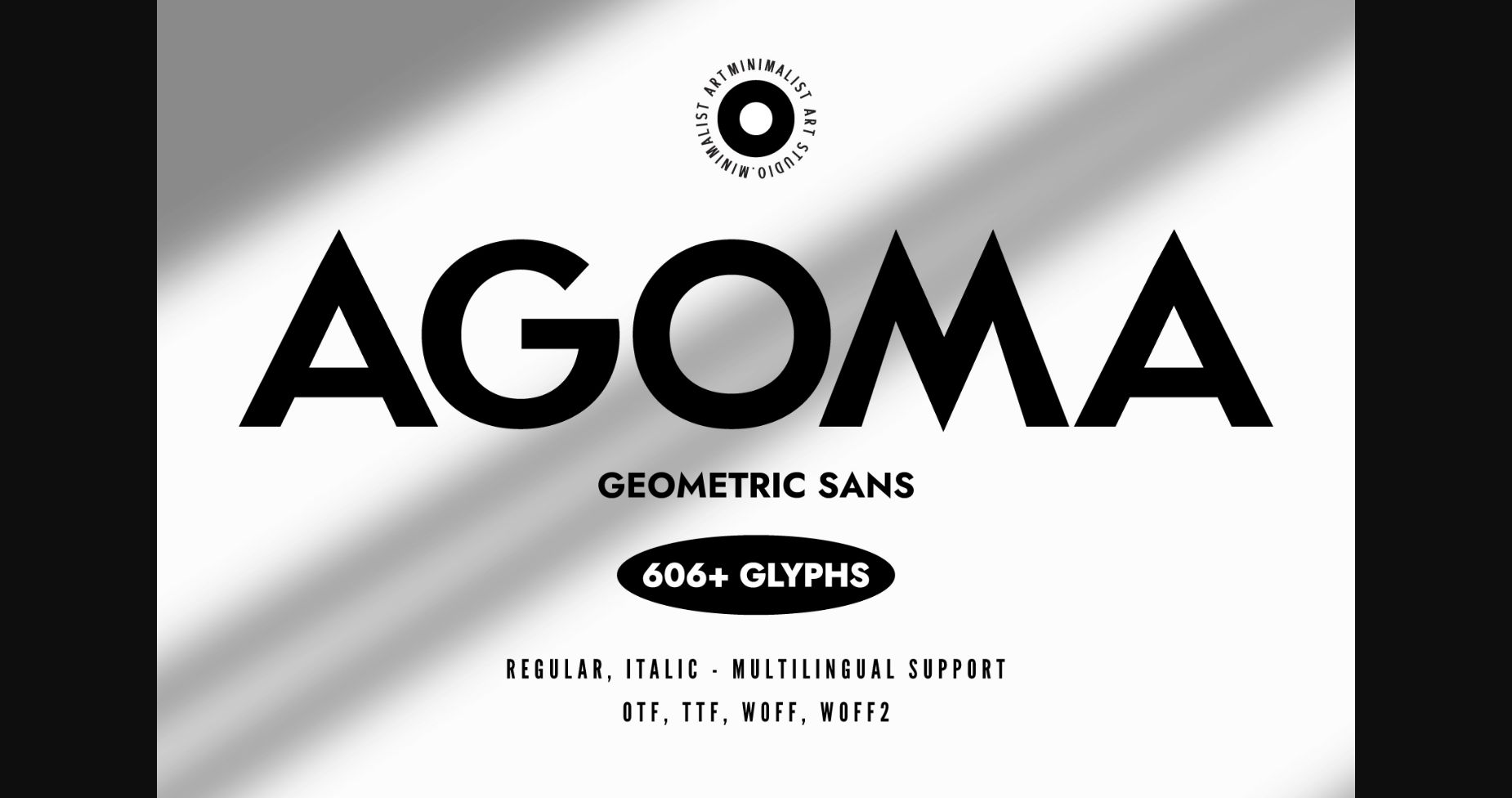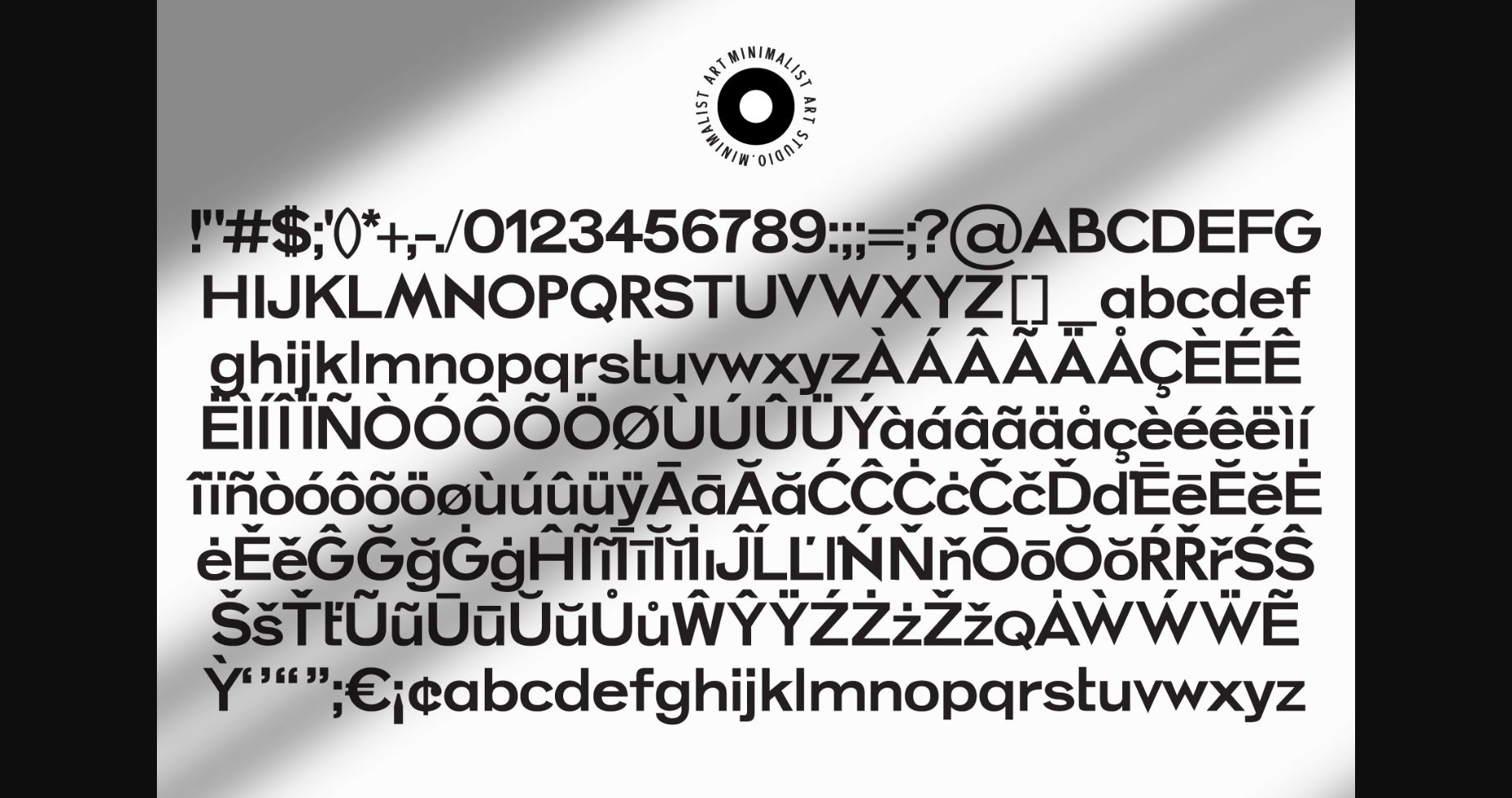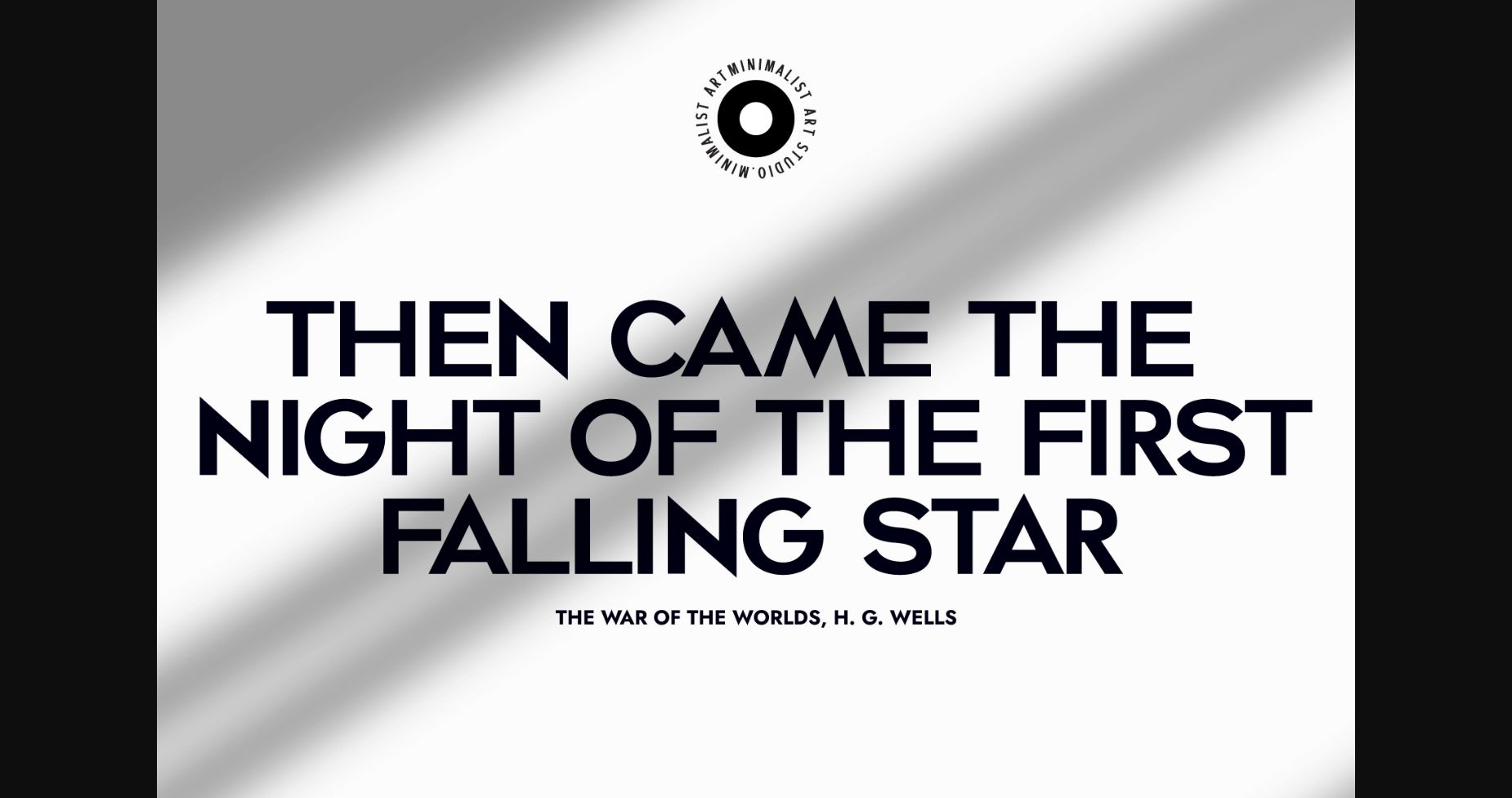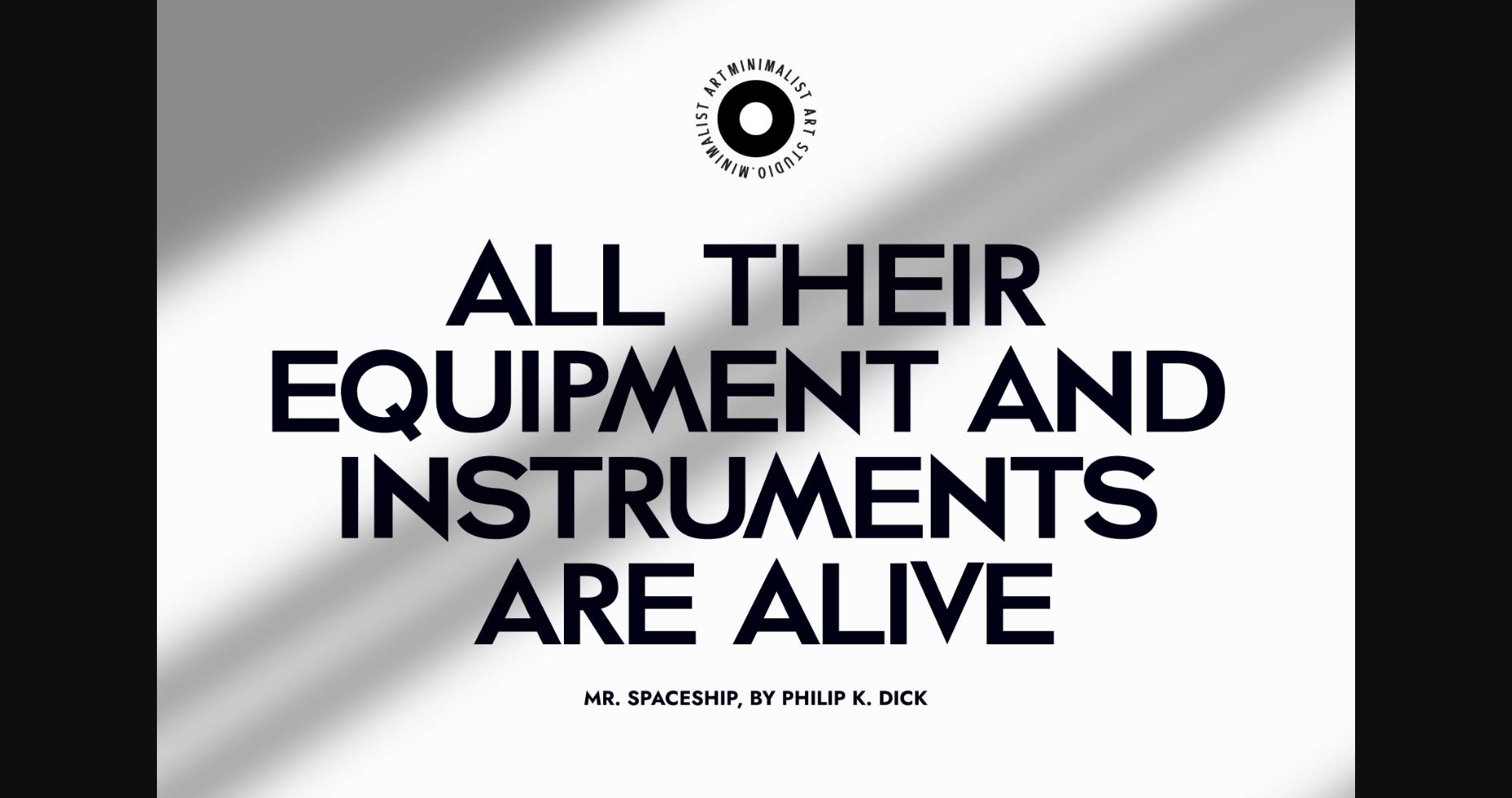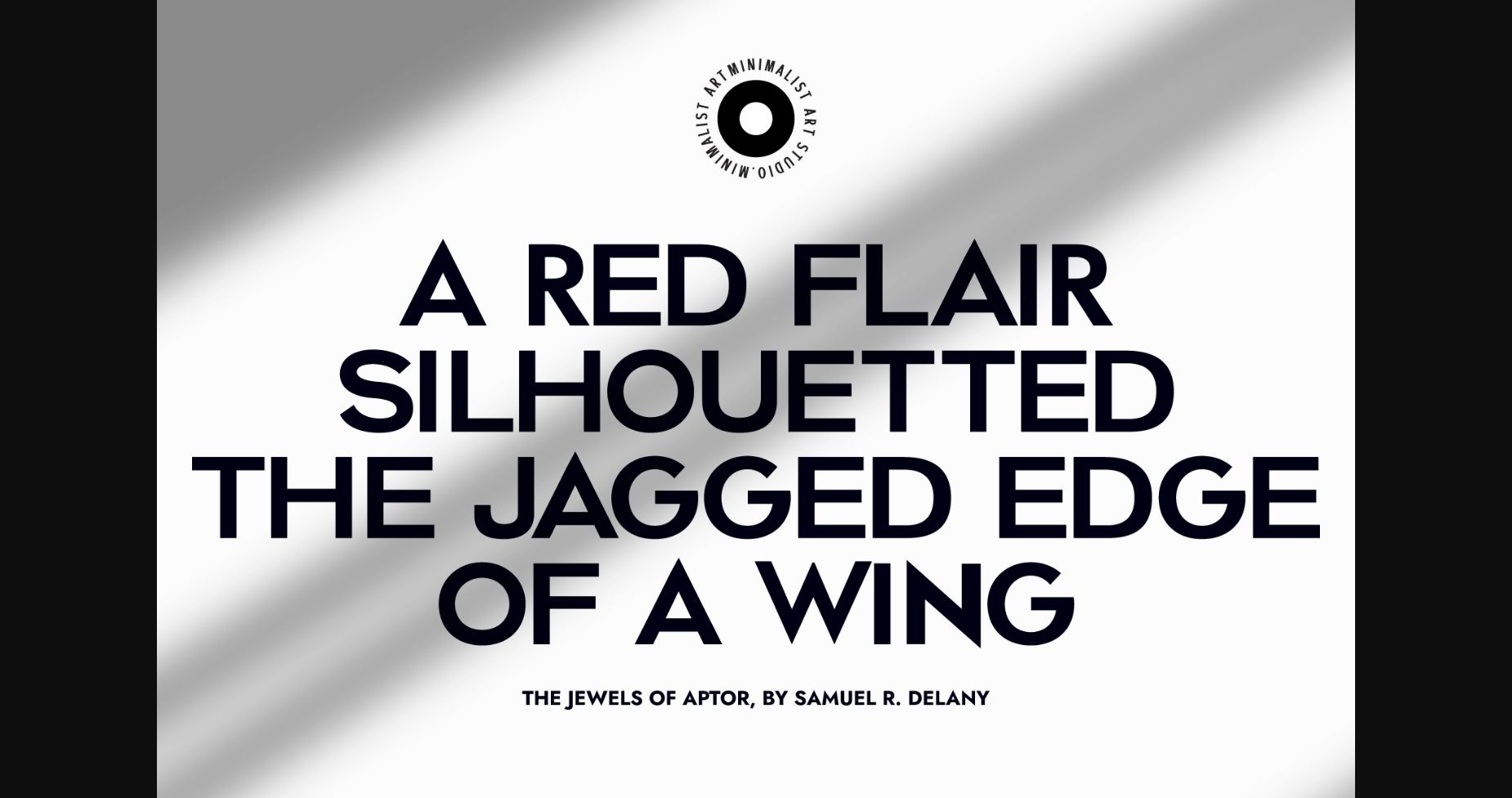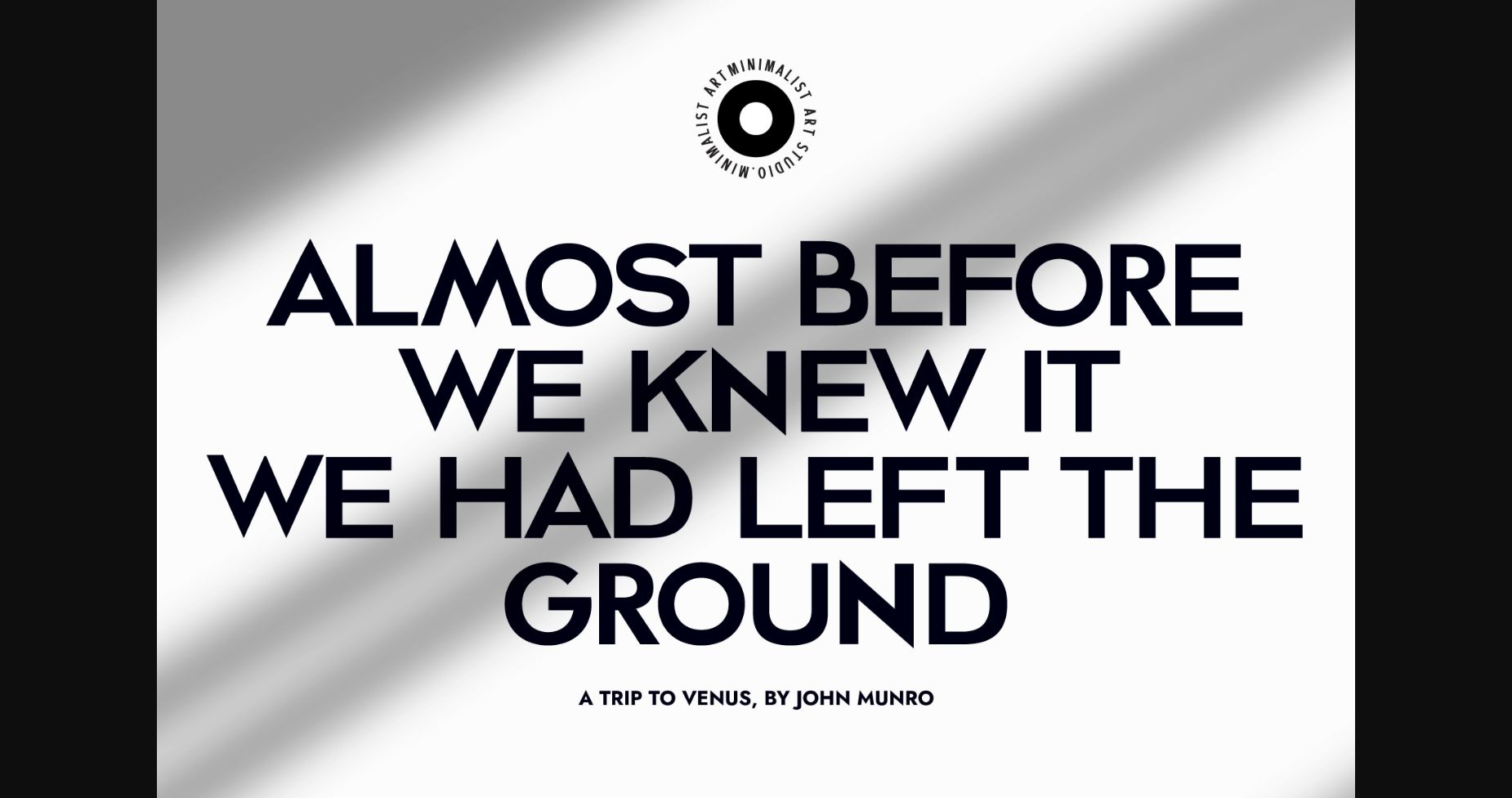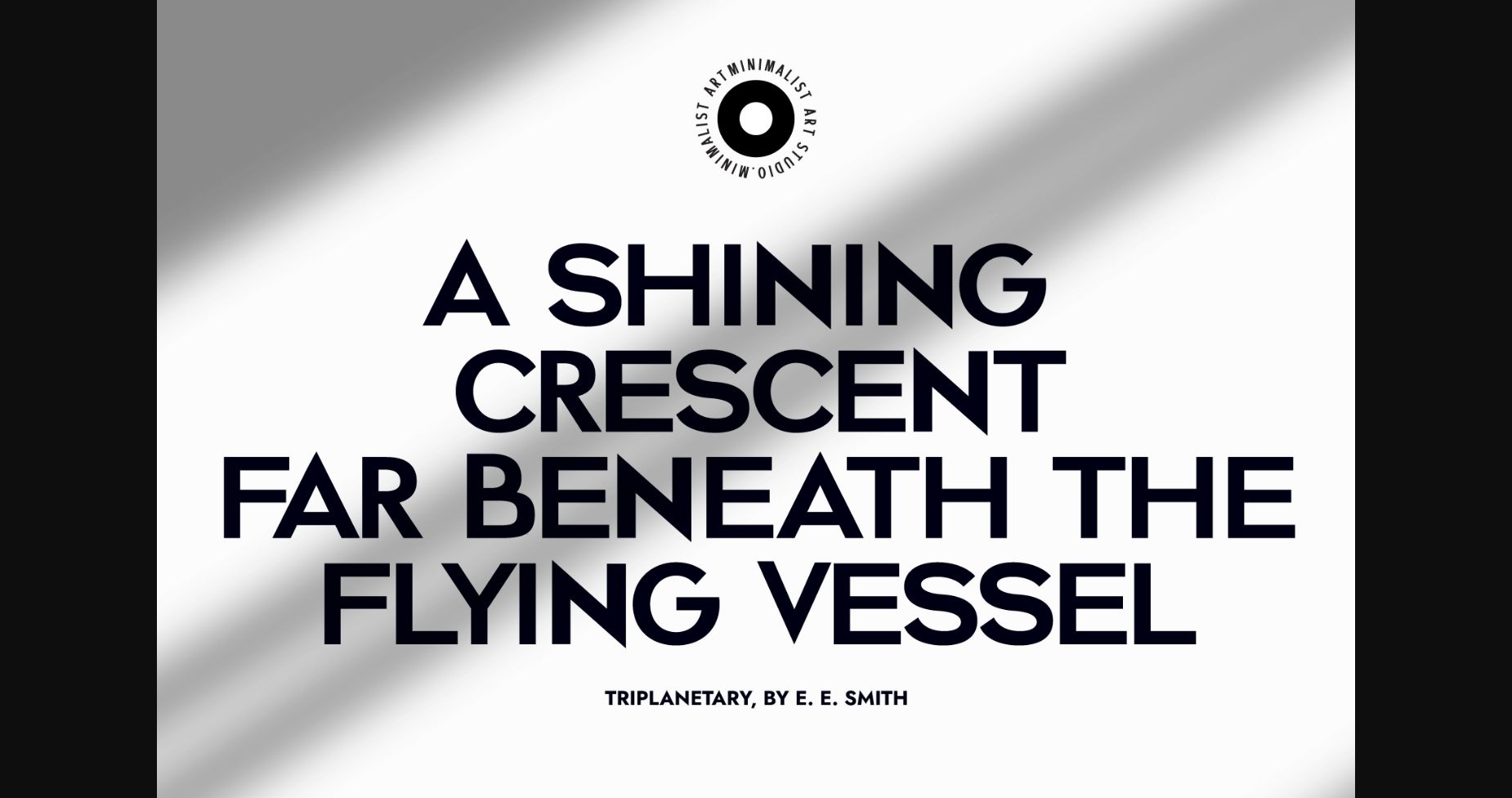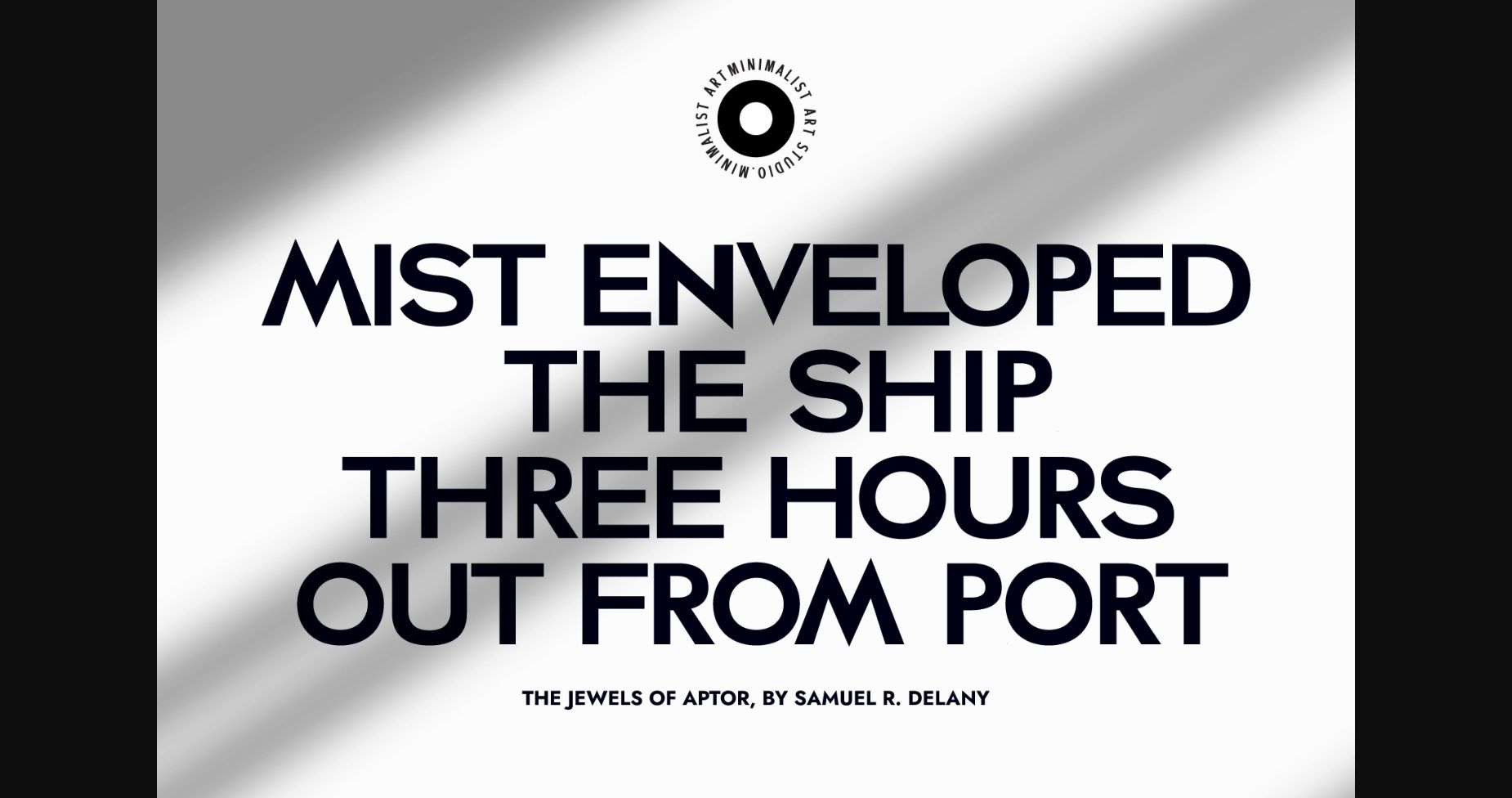
About Agoma Font
Agoma is a stunning minimalist font that boasts a sleek and modern design. Crafted with geometric precision, this clean sans serif grotesk font is the perfect choice for any designer seeking a bold and eye-catching typography solution.
Agoma features crisp lines and sharp angles that make it an ideal choice for creating clean and professional designs. Its minimalist style is perfect for modern branding, web design, packaging, and advertising. The fontβs unique character set includes uppercase and lowercase letters, numbers, and a variety of punctuation marks, making it versatile enough to suit any project.
The fontβs clean and straightforward design is accentuated by its high legibility, making it easy to read even in small sizes. The fontβs bold, geometric shape also ensures that it stands out, making it an excellent choice for headlines and titles.
With its sleek and minimalist style, Agoma is the perfect choice for designers who want to create modern and striking typography that makes an impact. Whether youβre working on branding, web design, or print media, Agoma is the font that will help you achieve a clean, polished, and professional look. So why wait? Try Agoma today and elevate your design projects to the next level!
Agoma features crisp lines and sharp angles that make it an ideal choice for creating clean and professional designs. Its minimalist style is perfect for modern branding, web design, packaging, and advertising. The fontβs unique character set includes uppercase and lowercase letters, numbers, and a variety of punctuation marks, making it versatile enough to suit any project.
The fontβs clean and straightforward design is accentuated by its high legibility, making it easy to read even in small sizes. The fontβs bold, geometric shape also ensures that it stands out, making it an excellent choice for headlines and titles.
With its sleek and minimalist style, Agoma is the perfect choice for designers who want to create modern and striking typography that makes an impact. Whether youβre working on branding, web design, or print media, Agoma is the font that will help you achieve a clean, polished, and professional look. So why wait? Try Agoma today and elevate your design projects to the next level!